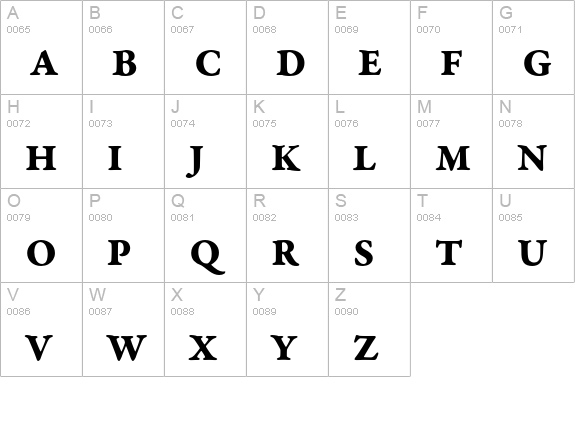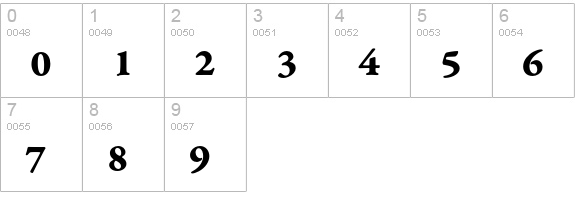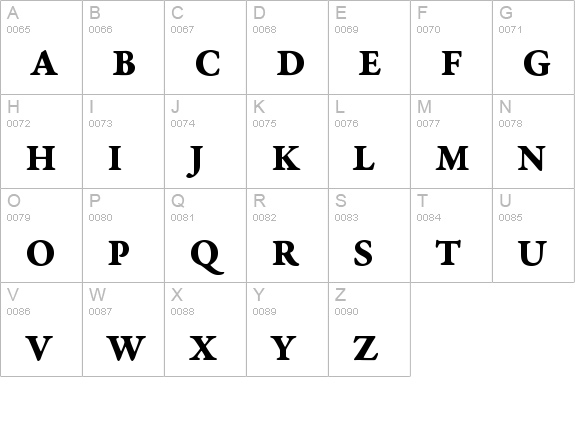
Garamond Premier Pro Bold Caption Font Details
Garamond Premier Pro Bold Caption is a strong, high-contrast variant in the Garamond typeface family \xE2\x80\x94 well suited to headlines, attention-grabbing titles, and strong calls-to-action.
Garamond Premier Pro Bold Caption font is a striking and elegant typeface that exudes sophistication and authority. Its bold weight commands attention while maintaining a sense of refinement and grace. Perfect for adding emphasis and impact to your designs, this font is ideal for headings, titles, and captions that need to stand out. And the best part? Garamond Premier Pro Bold Caption font is available for free download at FontsMarket.com. Don't miss out on the opportunity to elevate your projects with this exceptional font that combines tradition with a modern twist. Download it now and make a bold statement with your typography.